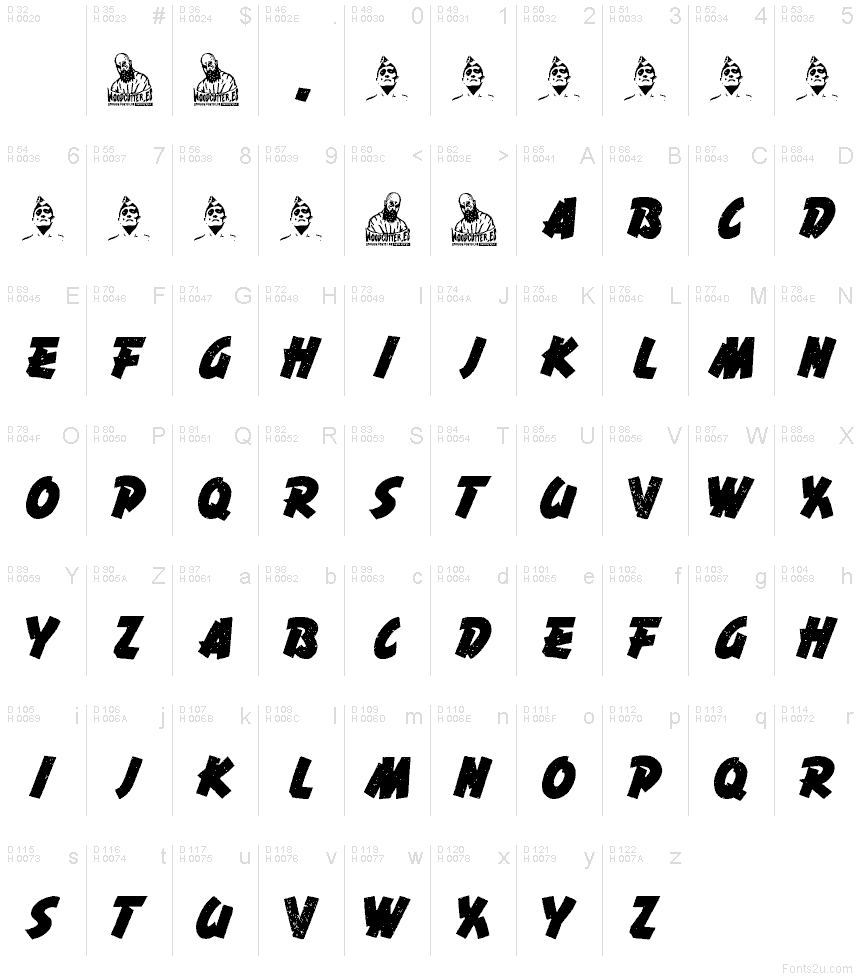
Spanish Adventure Mag
Spanish Adventure Mag font by Woodcutter is a playful comic display that combines various styles within its strong character. The free font presents sharp letter edges alongside soft smooth curves and eroded parts, thus producing bold and lively characters to be used for typing your headings, logotypes, and more.
Use this resource on magazine covers, posters, ad banners, or signage. Go further by putting it to good use with labels, packaging designs typography artwork/illustrations, music album covers or band t-shirts.